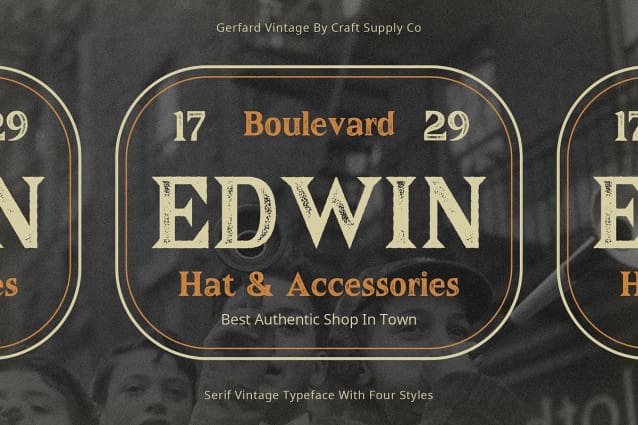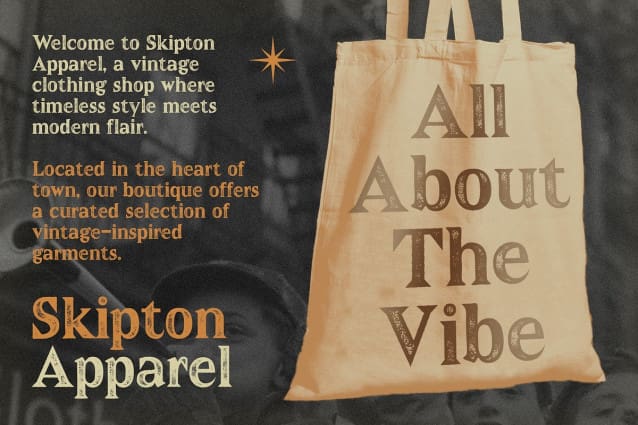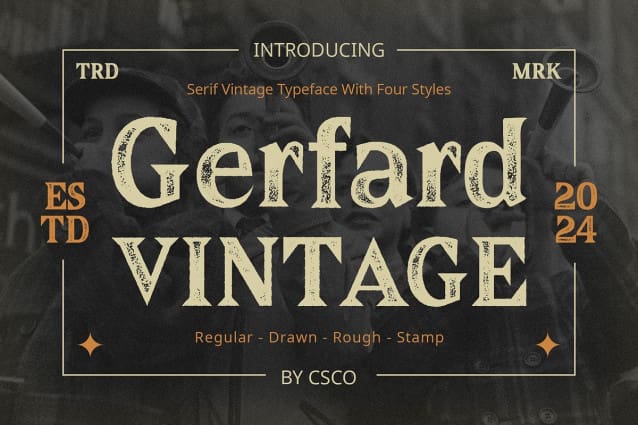
Gerfard Vintage Font
Gerfard Vintage Font: Vintage Vibes in Moderate Contrast. Serif Moderate Contrast Design Gerfard Vintage boasts a serif design with moderate contrast, striking the perfect balance between elegance and readability. Each character is meticulously crafted to convey a sense of timeless sophistication.
Stamp Effect The font is embellished with a subtle stamp effect, adding a touch of authenticity and nostalgia reminiscent of vintage typography. This effect lends This font its distinctive character and evokes a sense of heritage and craftsmanship.
Perfect for Display With its vintage vibes and moderate contrast, This font is ideally suited for display purposes. It commands attention and lends a touch of retro charm to headlines, banners, and other prominent elements in your designs.
Versatile Application Despite its vintage aesthetic, This font is versatile in its application. From branding and packaging to editorial design and signage, it adds a touch of vintage elegance to any project, enhancing its visual appeal and storytelling.
Timeless Elegance with Vintage Charm This font strikes the perfect balance between elegance and vintage charm, making it a versatile choice for designers seeking to evoke nostalgia and sophistication in their projects. Its serif moderate contrast design and subtle stamp effect combine to create a font that stands the test of time with timeless appeal.